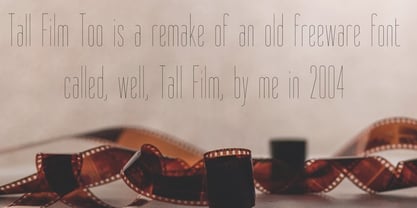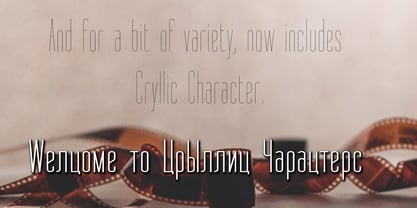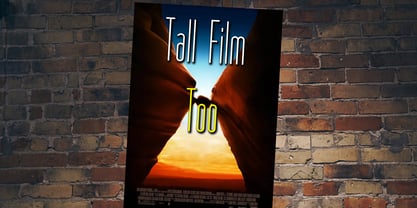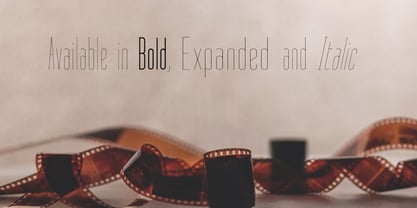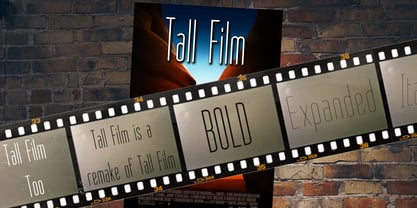
Tall Film Too
by Typotheticals
The Tall Film Too Font Family was designed by Graham Meade and published by Typotheticals. Tall Film Too contains 8 styles and family package options. More about this family
Tall Film Too is a casual recreation of Tallfilms, a poorly crafted typeface I rushed out in 2004, At that time I only spent about four hours on that version, ultimately releasing it as a free font.
On this remake, I have spent much more of my time in its creation, taking more care and also including a Cryllic glyph set. I believe I have spend about twelve hours creating this version.... :D